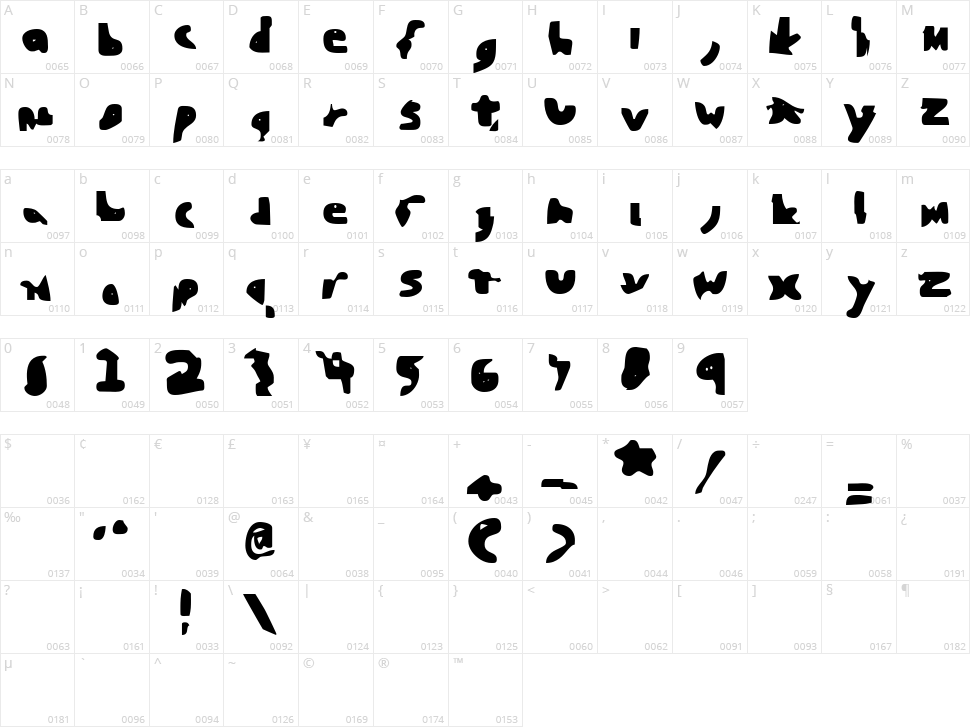
Blunted
this is the bionictype inDistress font package.
the included fonts are just a few of my previous fonts, but they have
been run through filters rendering them almost unreadable! yay!
enjoy them and if you find any use for them, then you might have some sort of
problem. i mean, to actually USE these fonts? it's almost unthinkable...